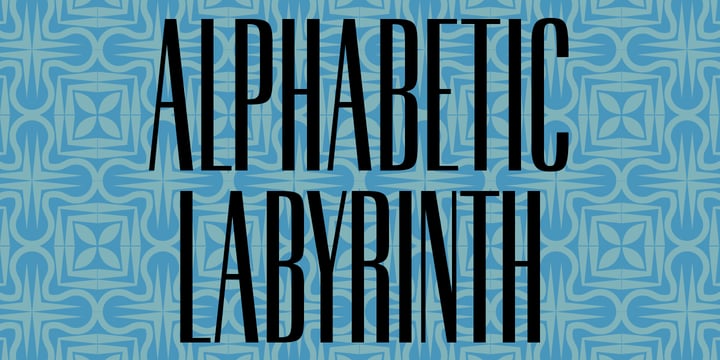
LTC Obelysk Grotesk
LTC Obelysk Grotesk™ by Lanston Type Co.
LTC Obelysk Grotesk Font Family was designed by Colin Kahn, Sol Hess, Gerald Giampa and published by Lanston Type Co.. LTC Obelysk Grotesk contains 1 styles. More about this family
About LTC Obelysk Grotesk Font Family
Obelysk Grotesk was designed by the Lanston Drawing Office in the late 1980s. This face is a reconstruction of
Spire
(1937) drawn by Sol Hess. The skeleton of Spire Roman stands with the serifs removed. Like Spire, this font has no lower case, but does offer alternate cap styles in some of the lower case positions. Spire and Obelysk have both been used prominently in the fashion industry.
Designers: Colin Kahn, Sol Hess, Gerald Giampa
Publisher: Lanston Type Co.
Foundry: Lanston Type Co.
Design Owner: Lanston Type Co.